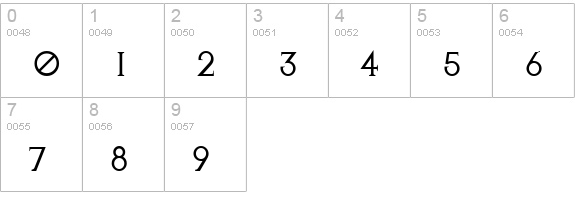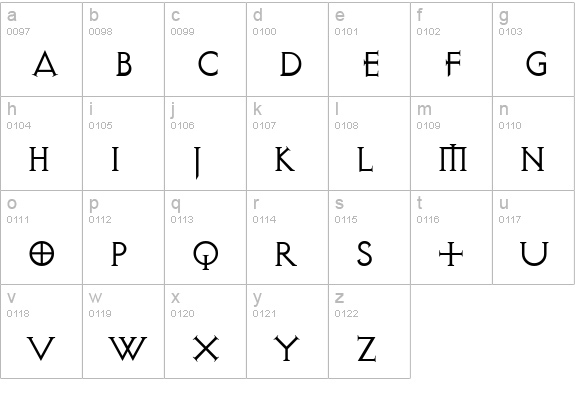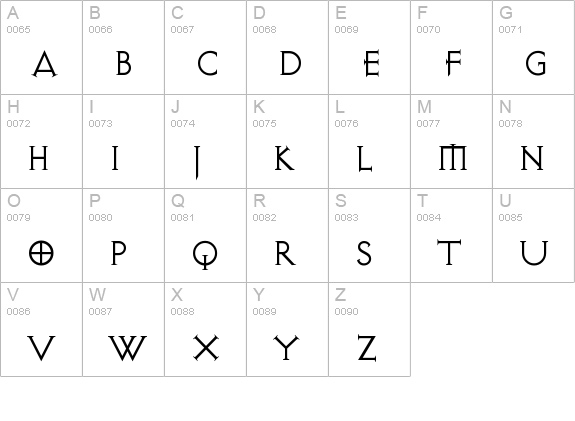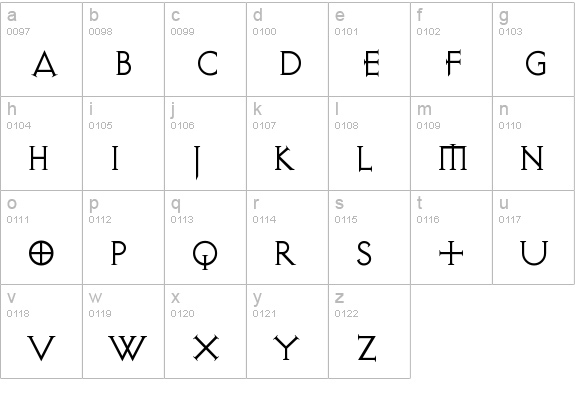
Exocet Light Font Details
Exocet Light is a refined, elegant variant in the Exocet typeface family \xE2\x80\x94 well suited to elegant body text, refined sub-headings, and luxury branding.
Exocet Light font exudes a sleek and modern aesthetic, perfect for adding a touch of sophistication to any design project. With its clean lines and subtle curves, this versatile typeface is ideal for a wide range of applications, from branding to editorial design. The light weight of the font gives it an airy and elegant quality, making it a great choice for creating a sense of refinement and elegance. Best of all, Exocet Light font is available for free download at FontsMarket.com. This means that you can easily access this stylish and eye-catching font without any cost, making it a valuable addition to your font library. Whether you're working on a personal project or a professional design, Exocet Light font is sure to elevate your work with its timeless appeal and modern flair.